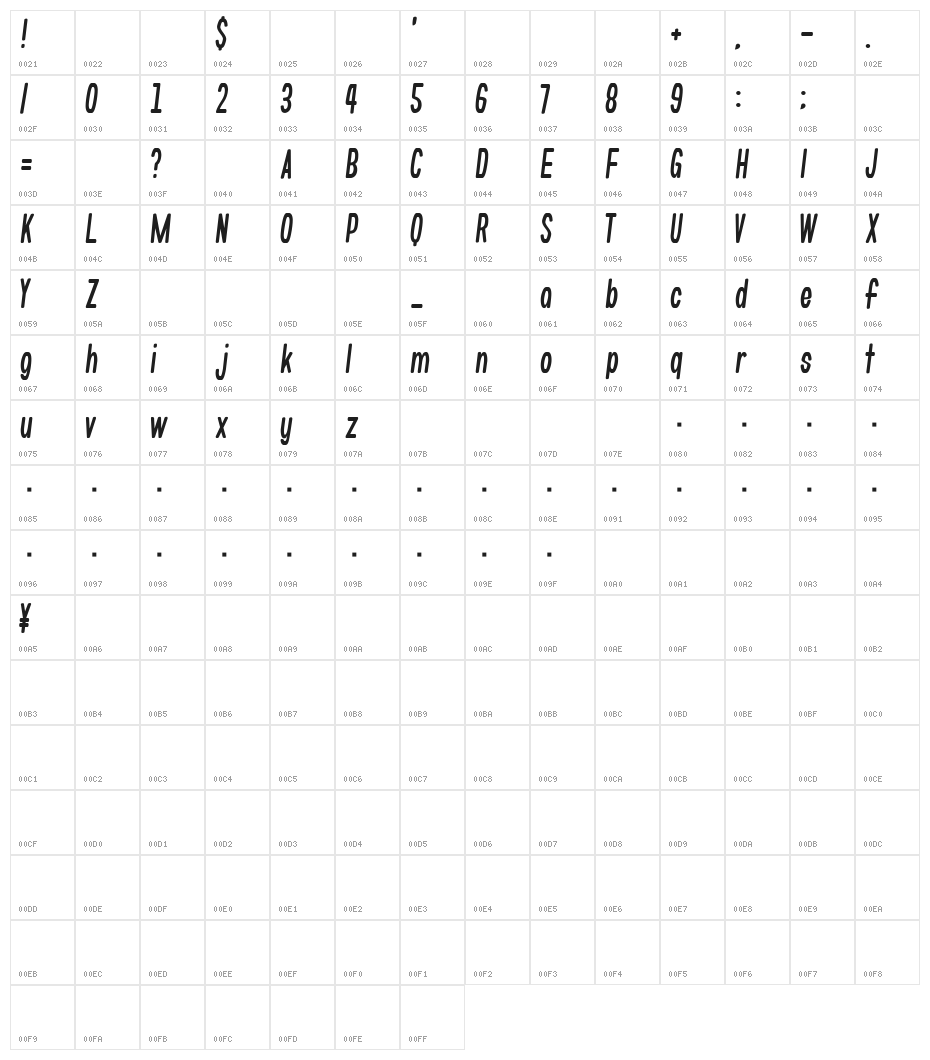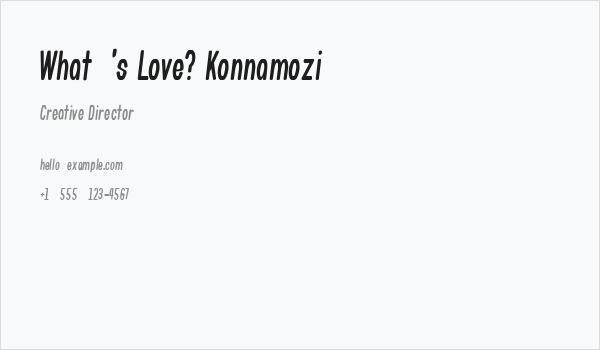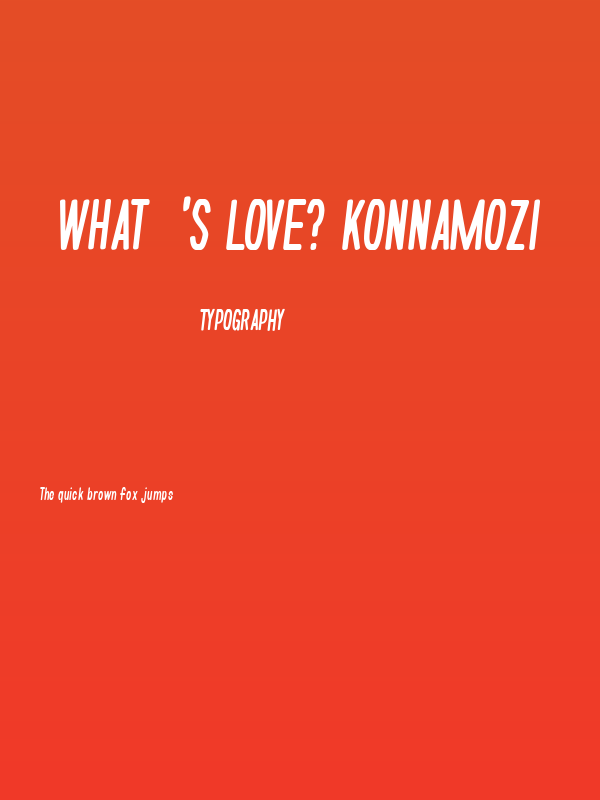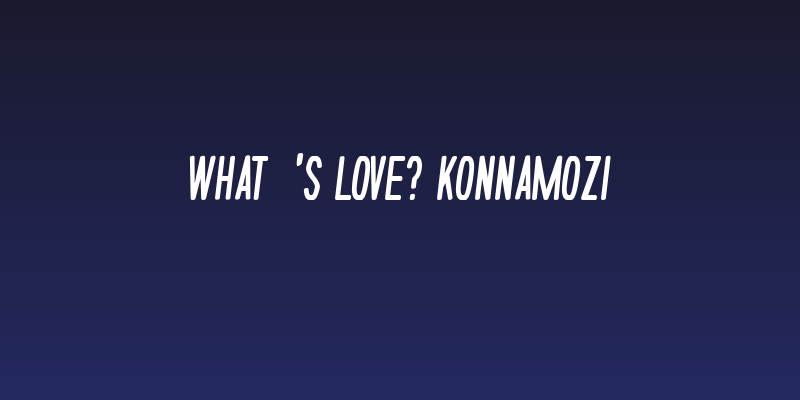
What's Love? Konnamozi Font
What's Love? Konnamozi Description
This font features a playful and dynamic style with a slight slant, giving it an energetic and lively appearance. The characters are bold and rounded, with a consistent stroke width that maintains readability while adding a touch of whimsy. The uppercase and lowercase letters are well-proportioned, and the numerals are clear and distinct. Special characters are included, maintaining the overall aesthetic. This font is ideal for projects that require a fun and approachable look, such as children's books, playful branding, or casual invitations.
| Proposed Projects | Children's books, playful branding, casual invitations, posters. |